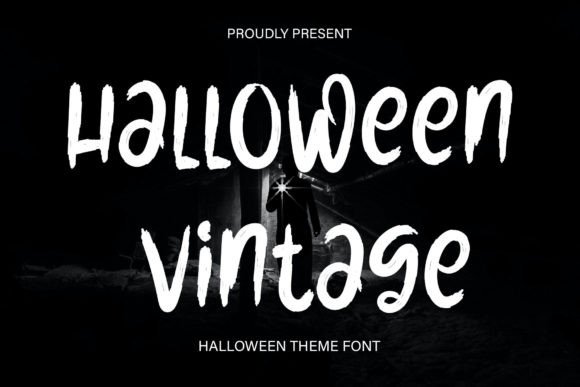
Feast your eyes on Halloween Vintage Font, a captivating script font family meticulously crafted to evoke the charm of yesteryear. Designed by the talented pinkmeca, this font exudes a touch of nostalgia, making it the perfect choice for those seeking a unique and memorable font for their Instagram words.
Step into a world where elegance and playfulness intertwine, where each letter dances across the page with a graceful flourish. Halloween Vintage Font is a visual delight, its whimsical curves and delicate details adding a touch of whimsy to your creations.
With Halloween Vintage Font, your Instagram posts will be transformed into works of art. Its timeless charm will elevate your words, capturing the attention of your audience and leaving a lasting impression. Whether you're crafting heartfelt messages, sharing captivating stories, or promoting your products, this font will make your content stand out from the crowd.
But Halloween Vintage Font is more than just a pretty face. Its versatility knows no bounds, making it the perfect choice for a wide range of design projects. From wedding invitations to greeting cards, from posters to flyers, this font adds a touch of elegance and sophistication to any project.